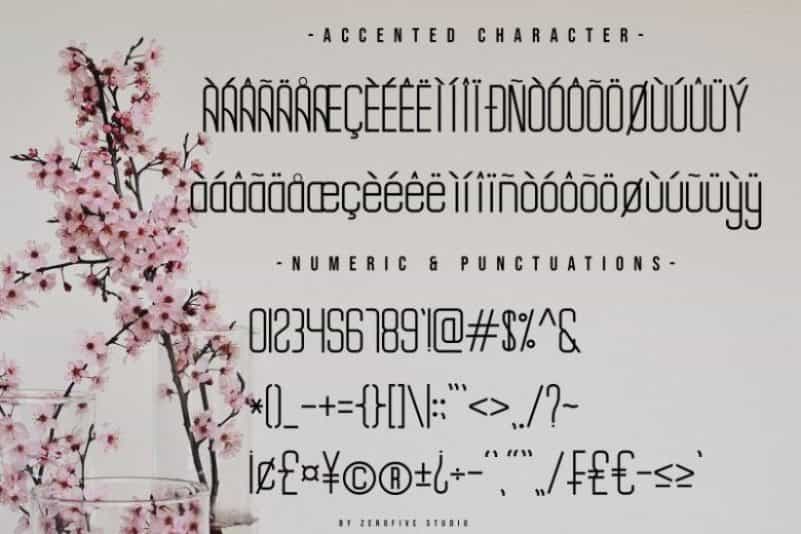
Alexa Queen Font is an elegant modern sans serif font that is perfect for any project. This chic font takes the decoration out of deco but keeps those vintage curves. A perfect blend of innovation and tradition. This is an ideal font for word-mark logos, mastheads, pull quotes, and monograms.